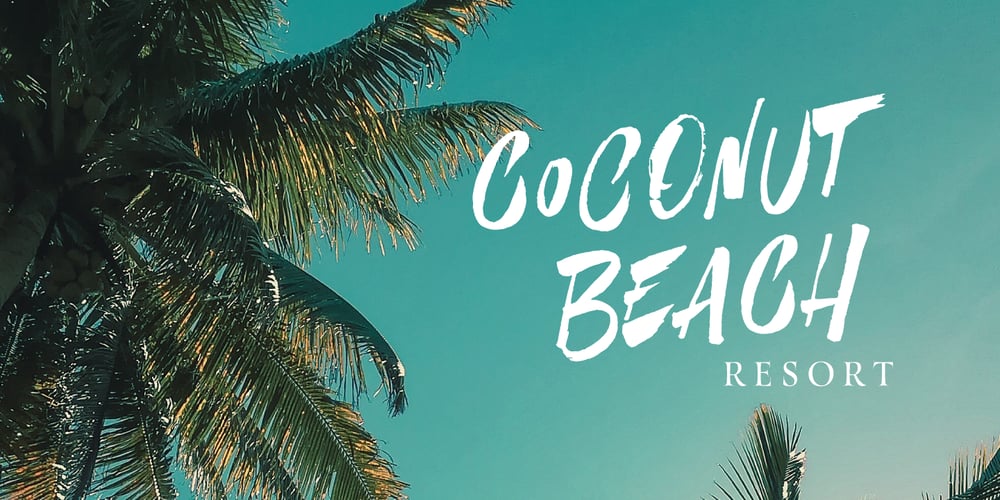
Parkour Font Family was designed by Giuseppe Salerno, Paco González and published by Resistenza. Parkour contains 2 styles and family package options. Parkour Font Family: Where Urban Spirit Meets Graphic ExpressionParkour Brush Font captures the essence of this urban discipline, translating its repertoire of moves and free-flowing energy into typographic form. With each letter meticulously crafted with authentic dry brush imperfections and a lively baseline, this font embodies the agility and strength demanded by the sport.Imagine the thrill of navigating through an urban landscape, seamlessly moving from one obstacle to another with precision and speed. Parkour Marker Font encapsulates this sensation, offering a diverse range of glyphs, including numerals, punctuation, and multilingual support. Its versatility extends with a collection of bonus swashes and extras, perfect for adding a personalised touch to your designs.Whether you’re branding a product, crafting social media posts, designing stationery, or creating eye-catching advertisements, the Parkour Font Family provides the tools to make your message stand out. Its full set of upper and lowercase characters allows for endless customisation, transforming ordinary text into dynamic hand-lettered artwork.Featuring OpenType Stylistic alternates, this font family offers flexibility and creativity. Accessing these alternates is easy with compatible programs like Adobe Illustrator CS, Adobe InDesign, or CorelDraw X6-X7. Additionally, alternative glyphs can be accessed through Character Map (Windows), Nexus Font (Windows), Font Book (Mac), or specialised software such as PopChar (for both Windows and Mac).More About Opentype Features: https://bit.ly/opentype-rsz